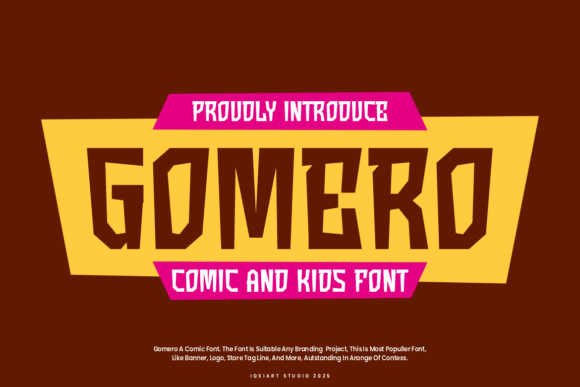
Introducing Gomero Font: The Ultimate Choice for Fun and Playful Designs
In the world of typography, fonts play a crucial role in conveying the tone and personality of a brand or design. For designers and crafters looking for a font that screams fun and mischief, Gomero Font is an excellent choice. This comic-style font is specifically designed for young audiences and playful branding, making it perfect for comics, children’s books, game interfaces, logos, banners, and educational materials.
The Unique Characteristics of Gomero Font
Gomero Font boasts a blocky and expressive lettering style that brings a dynamic feel to any design. Its bold and playful presence is sure to capture the attention of young readers and gamers, making it an ideal choice for designers who want to create engaging and interactive content. The font’s high readability ensures that the message is conveyed clearly, making it perfect for educational materials, logos, and banners.
What Makes Gomero Font Stand Out?
- Comic-style design: Gomero Font has a unique comic-style design that is sure to add a touch of fun and playfulness to any design.
- Blocky and expressive letters: The font’s blocky and expressive letters bring a dynamic feel to comics, children’s books, and game interfaces.
- High readability: Gomero Font has high readability, making it perfect for educational materials, logos, and banners.
- Bold presence: The font’s bold presence is sure to capture the attention of young readers and gamers.
Gomero Font is a fantastic pick for designers and crafters who want to create engaging and interactive content for young audiences. Whether you’re designing a comic book, children’s book, game interface, logo, banner, or educational material, this font is sure to bring a touch of fun and playfulness to your design.
Tips for Using Gomero Font
Here are some tips for using Gomero Font in your designs:
- Use it for headings and titles: Gomero Font is perfect for headings and titles, where you want to make a bold statement.
- Pair it with other fonts: You can pair Gomero Font with other fonts to create a unique and interesting design.
- Experiment with colors: Gomero Font looks great in bright and bold colors, so don’t be afraid to experiment.
In conclusion, Gomero Font is a fantastic choice for designers and crafters who want to create fun and playful designs for young audiences. Its unique comic-style design, blocky and expressive letters, high readability, and bold presence make it perfect for comics, children’s books, game interfaces, logos, banners, and educational materials. So why not give Gomero Font a try and bring a touch of fun and mischief to your designs?
With Gomero Font, the possibilities are endless. Whether you’re a designer, crafter, or DIY enthusiast, this font is sure to inspire you to create something amazing. So go ahead, download Gomero Font, and unleash your creativity!